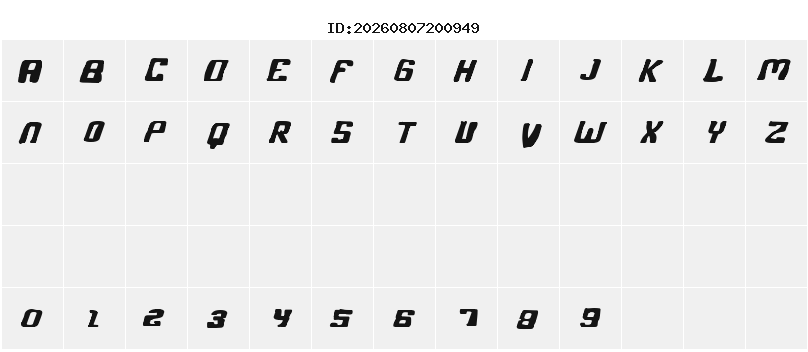
phonebook Preview
• Font Name: phonebook
• Font Style: nubby
• Font ID: Altsys Fontographer 4.0.4 Criminal Italic
• Full Font Name: phonebook nubby
• Version: Altsys Fontographer 4.0.4 4/21/97
• PostScript Name: Phonebooknubby
• Character Count: 111
About phonebook.ttf
phonebook.ttf is a modern, elegant sans-serif font designed for ultimate readability and visual harmony. Perfect for branding, headlines, web design, and print materials.